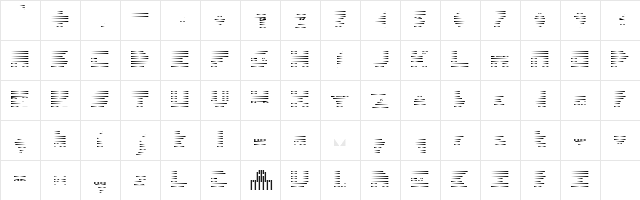
Paper UltraLight
| Foundry | Swimmingpo?lp |
| Designer | Swimmingpo?lp |
Design Context for Paper Typeface
Paper is a composed and adaptable typeface that performs quietly and consistently across a wide range of design contexts. The delicate stroke weight brings airiness and refinement to layouts.